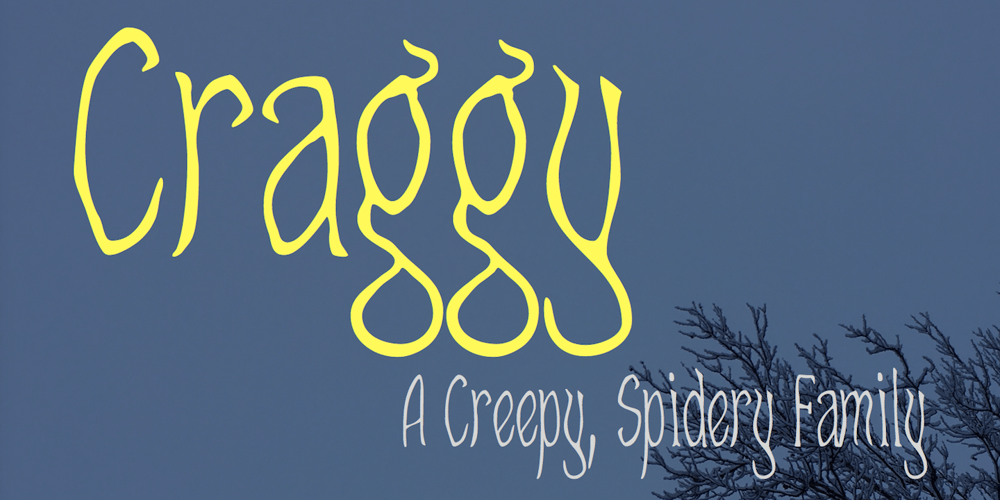
Craggy Font Family was designed by Robert Schenk and published by Ingrimayne Type. Craggy contains 9 styles and family package options. Craggy has a narrow, spidery, irregular set of letters. Its creepy, Halloween spirit makes it ideal for scary stories and similar uses. The family has three base styles: condensed, regular, and bold. Each comes with an oblique and backslanted version yielding a complete family of nine members.